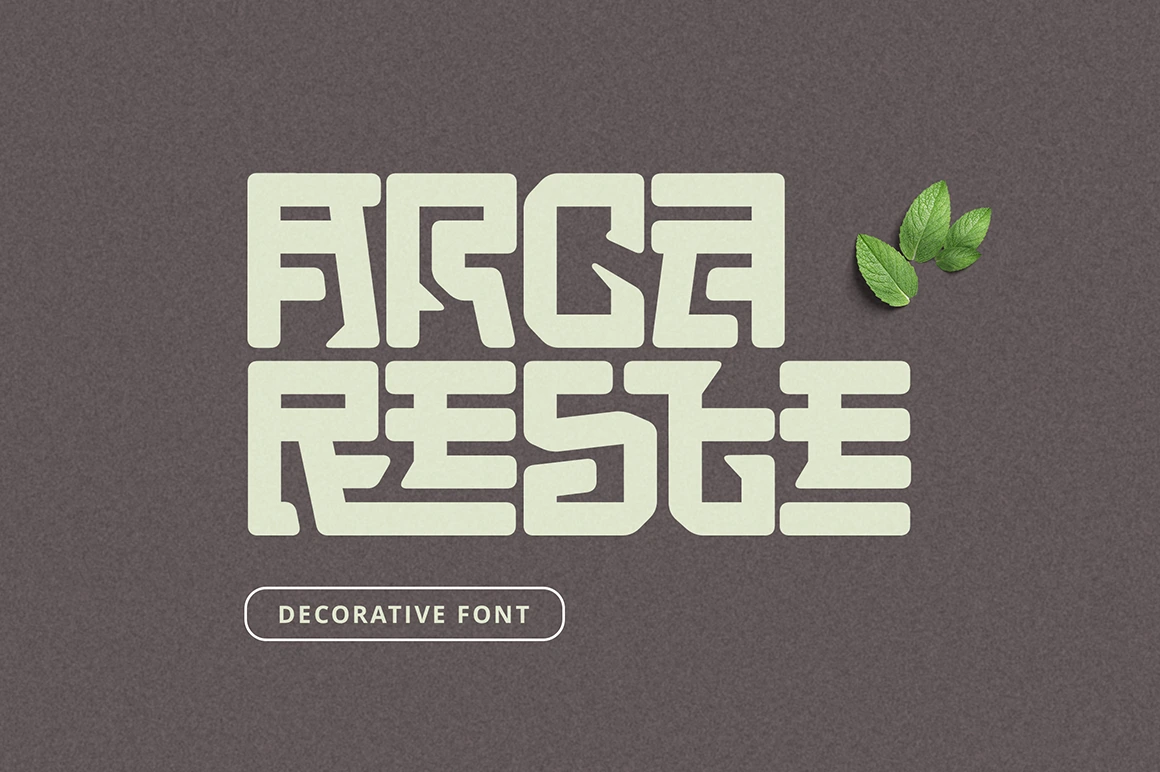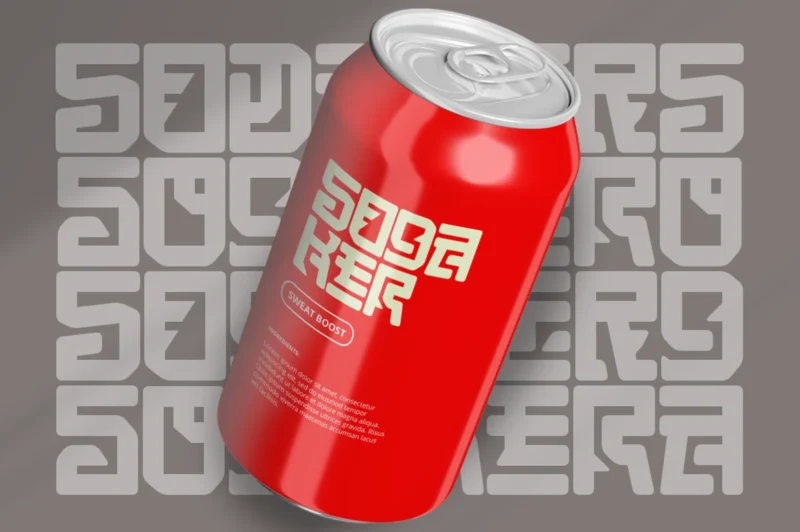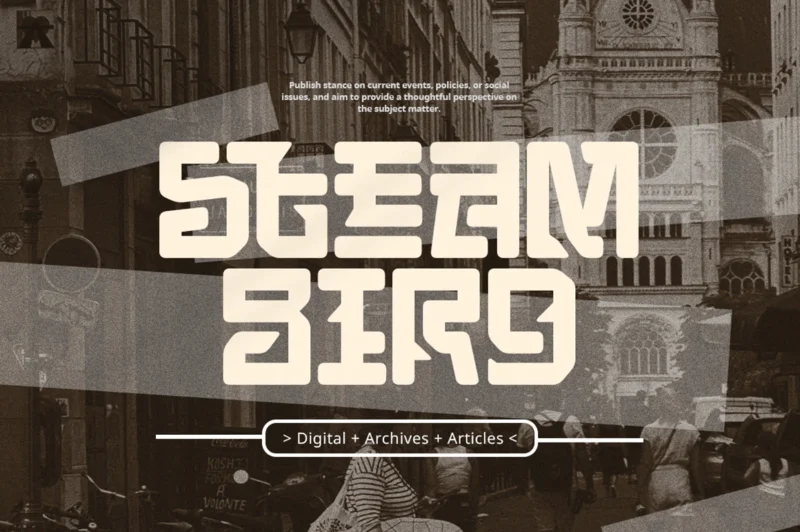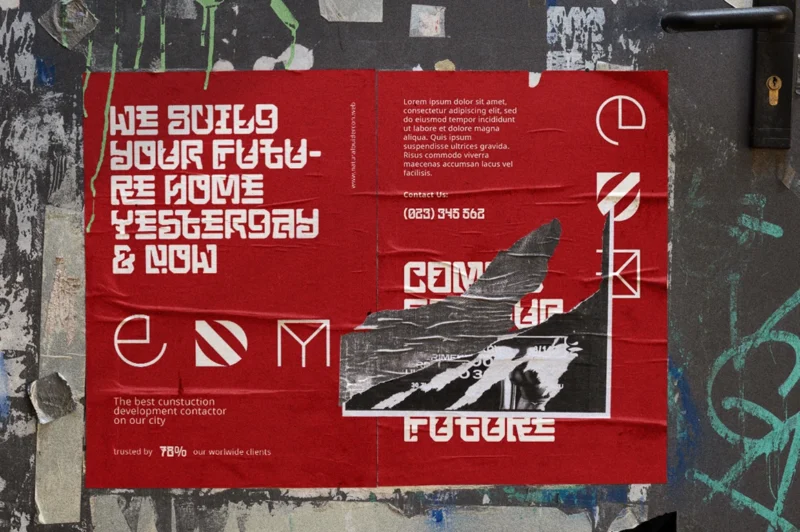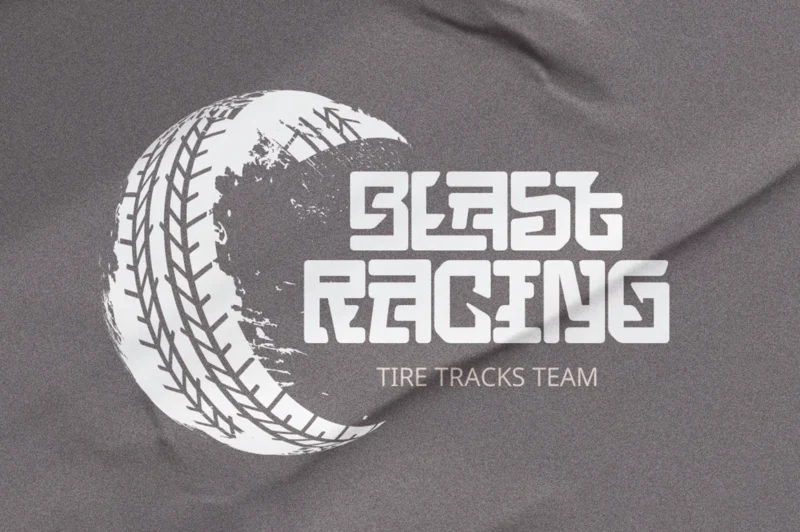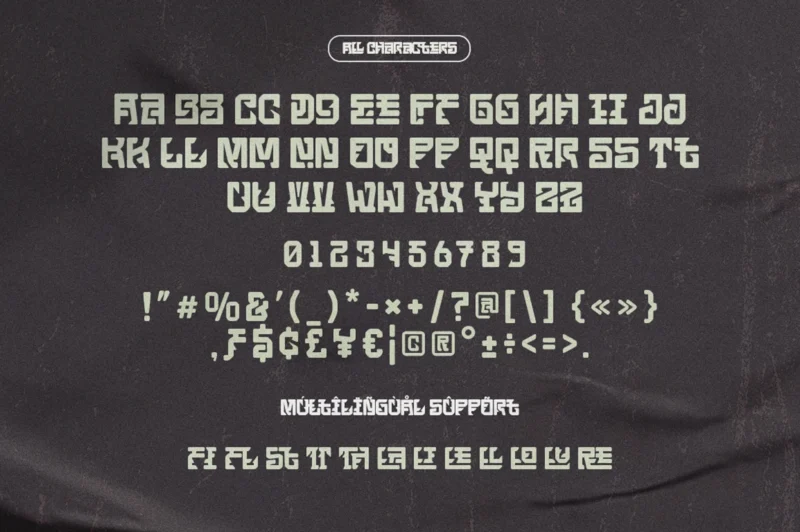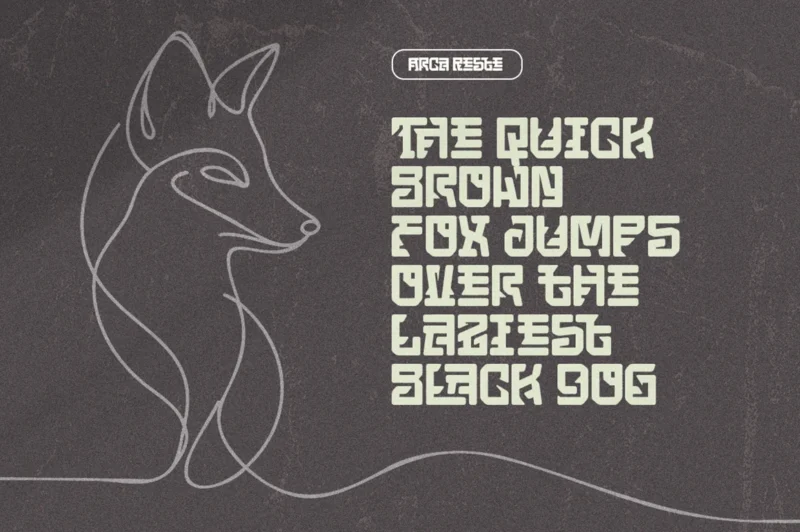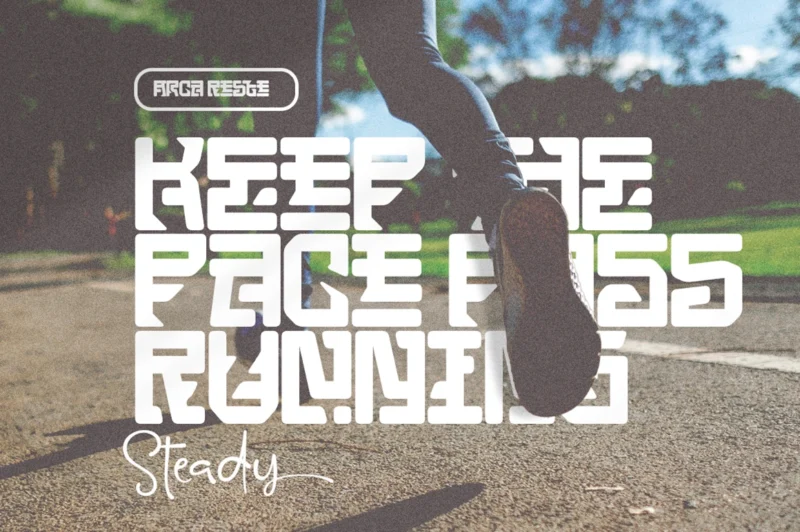
Arca Reste
Arca Reste is a modern bold decorative display font that commands attention with its tough presence and round edges. Designed with a unique and cutting-edge style, Arca Reste exudes a tech-forward aesthetic, making it perfect for projects that demand a strong, visionary look. Whether used for logo design or as a striking editorial header, this font delivers high impact and contemporary appeal.
• Bold Decorative Display Font
• Unique Typeface
• Basic Latin Glyphs
• Numeral and Punctuation
• Currencies
• Multilingual Support